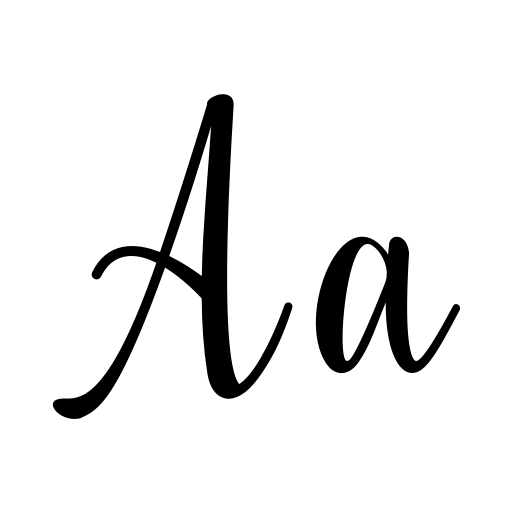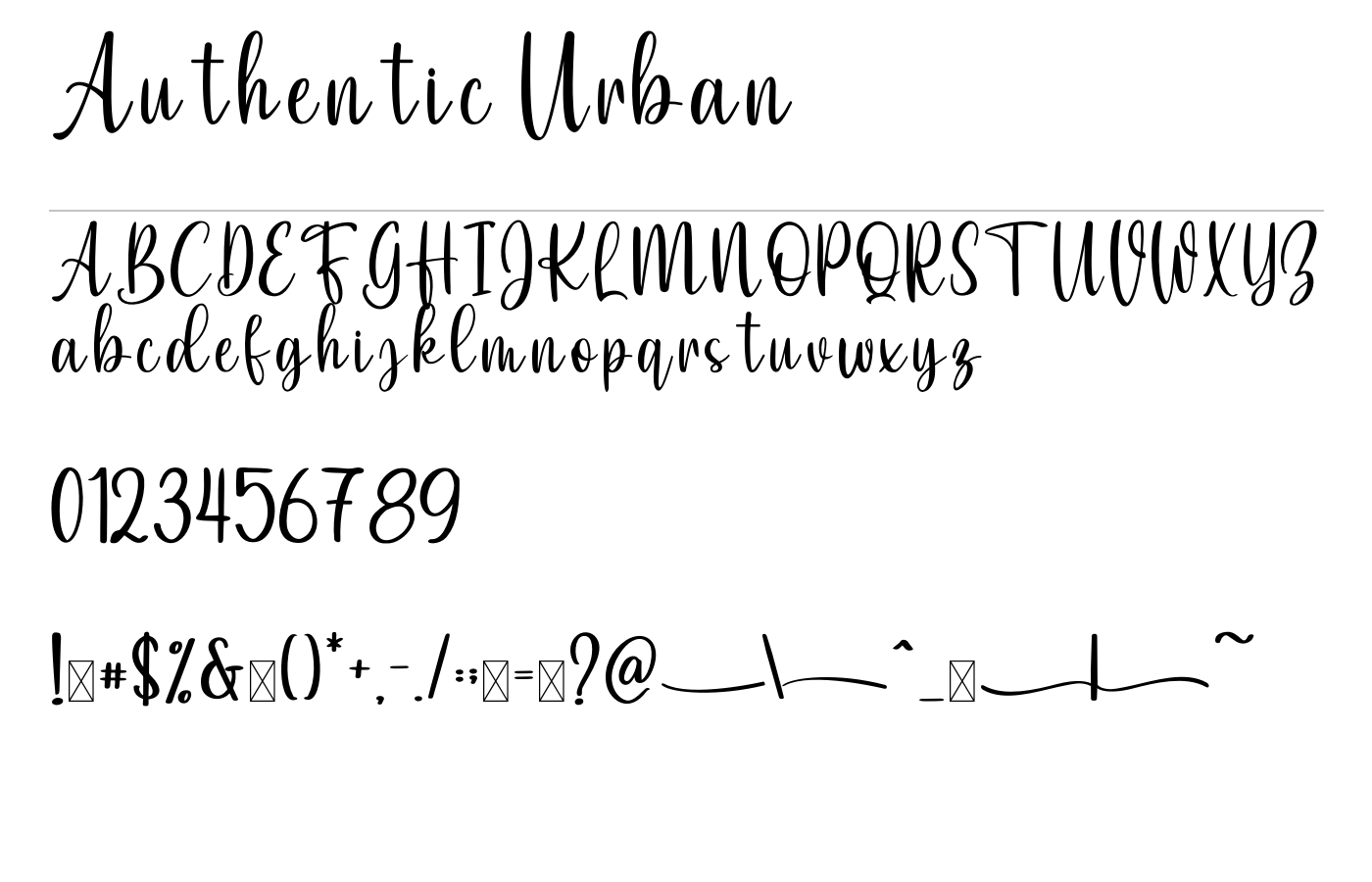
Authentic Urban is a playful and elegant script font featuring tall, slender letterforms with lively, hand-drawn strokes that combine a modern and casual feel. Its unique letter shapes and smooth curves make it perfect for creative branding, invitations, and stylish headlines where a personal, contemporary touch is desired. This font works well in designs that need a friendly yet sophisticated vibe, especially for fashion, lifestyle, and artistic projects.
Authentic Urban Font
About Authentic Urban Font
| Designer | Rezha P. Dewanto |